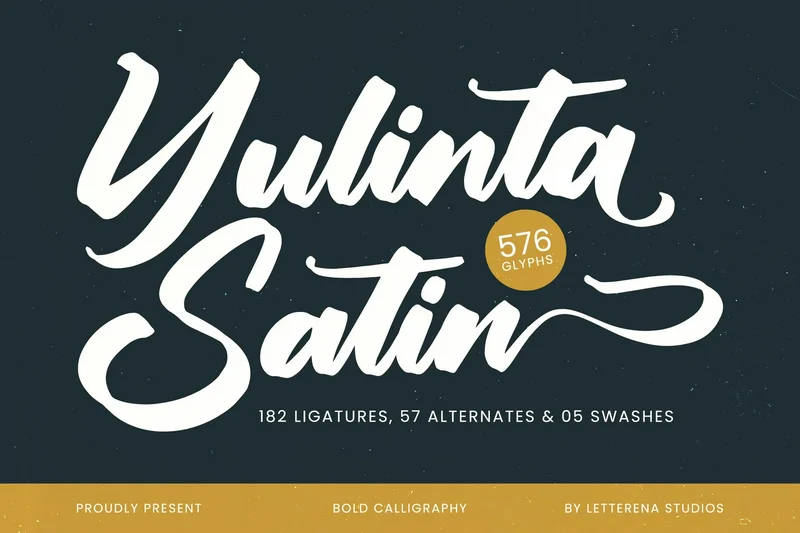
Yulinta Satin
Hi ladies & gentlemen, this is one of our fonts suitable to complement your digital and printed creative products. This font is perfect for posters, social media posts, branding, personal projects, etc.